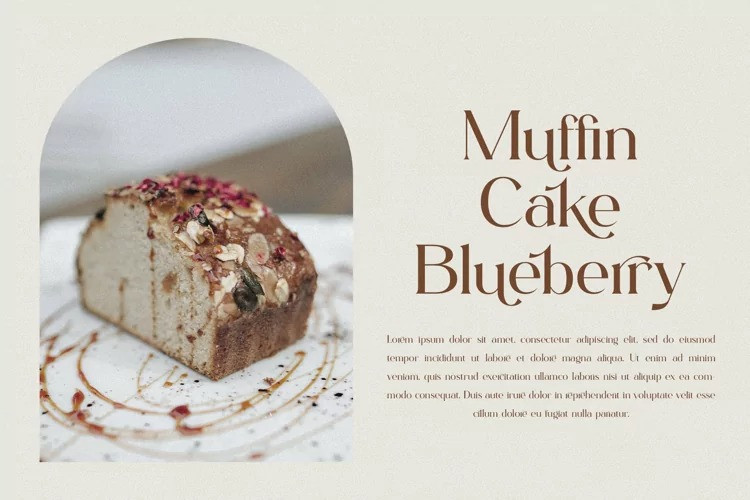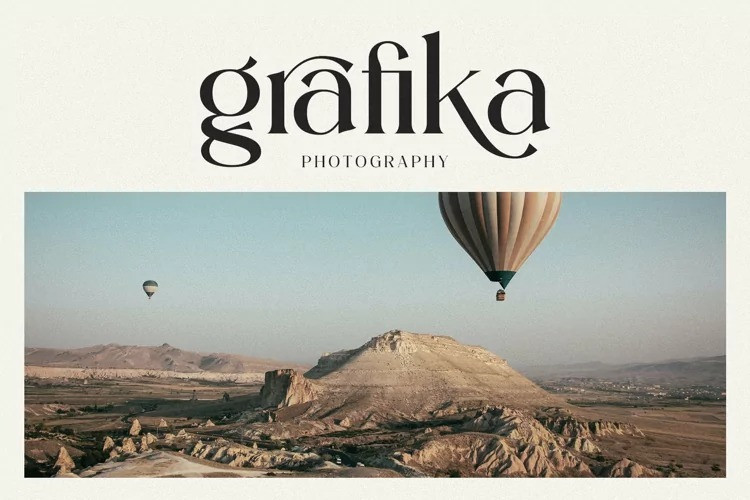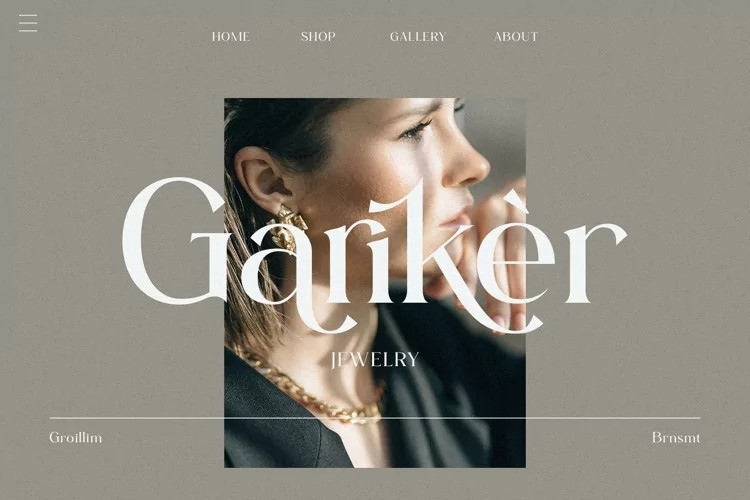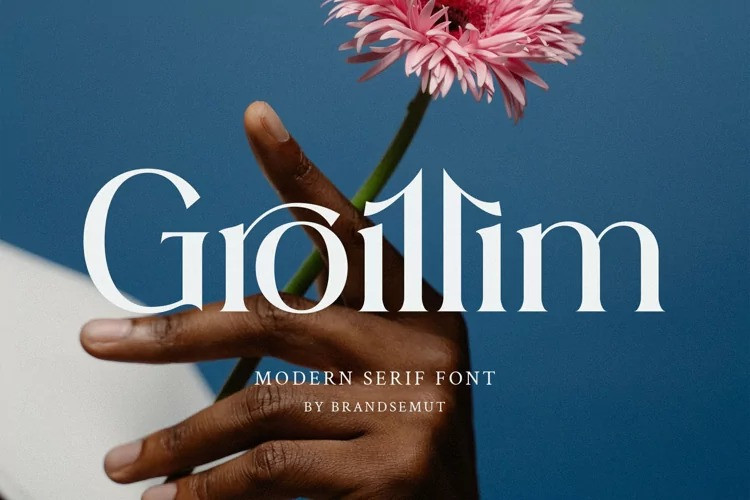
Groillim Serif Font is a modern serif font is unique as it can be used for a variety of design styles. Groillim is a elegant and modern typeface, best used as a display for headings, logos, branding, magazines, product packaging and invitations. Groillim come with clean lines and smooth curves give any project an extra touch of class.
Groillim